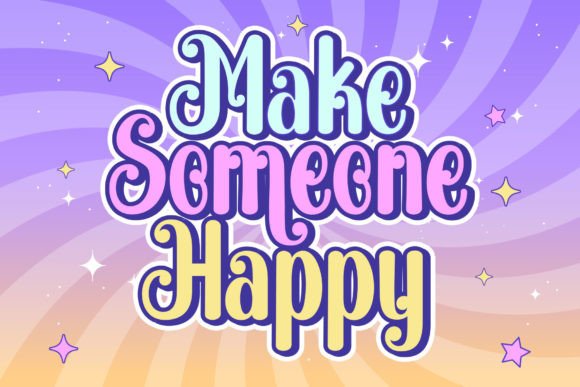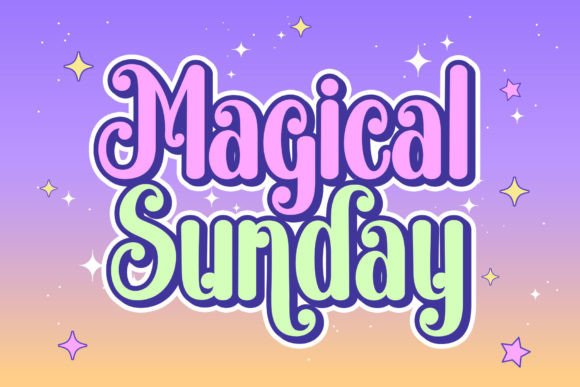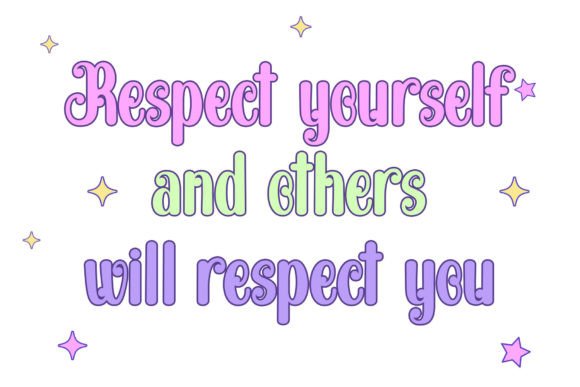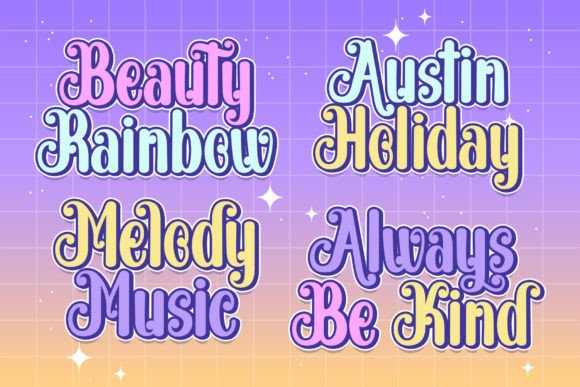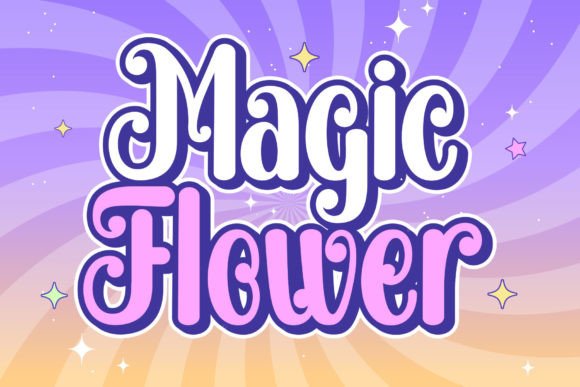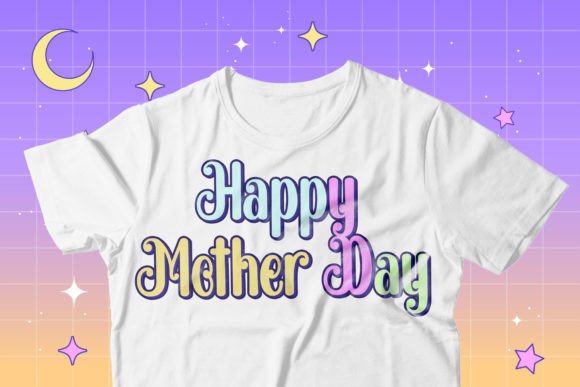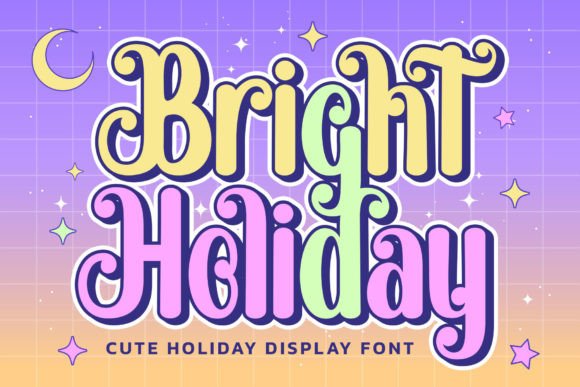
Introducing Bright Holiday Font: Add a Quirk of Fun to Your Designs!
Are you tired of using the same old fonts in your designs? Do you want to add a touch of whimsy and personality to your creations? Look no further than Bright Holiday Font, a cool, quirky, and fun display font that’s perfect for designers and crafters alike. In this article, we’ll take a closer look at what makes Bright Holiday Font so special and how you can use it to elevate your designs.
What is Bright Holiday Font?
Bright Holiday Font is a unique and eye-catching display font that’s designed to add a special quirky touch to any design idea. With its fun and playful style, this font is perfect for a wide range of projects, from logos and branding to invitations, stationery, wedding designs, social media posts, and more.
One of the things that sets Bright Holiday Font apart is its PUA (Private Use Area) encoding. This means that you can access all of the glyphs and alternates with ease, giving you even more creative freedom to customize your designs. Whether you’re a professional designer or a DIY crafter, Bright Holiday Font is an excellent choice for anyone looking to add a bit of personality to their work.
Key Features of Bright Holiday Font
So, what makes Bright Holiday Font so special? Here are just a few of its key features:
- Cool and quirky style: Bright Holiday Font has a unique and eye-catching style that’s perfect for designers who want to add a bit of personality to their work.
- PUA encoded: With PUA encoding, you can access all of the glyphs and alternates with ease, giving you even more creative freedom to customize your designs.
- Multi-purpose: Bright Holiday Font is perfect for a wide range of projects, from logos and branding to invitations, stationery, wedding designs, social media posts, and more.
- Easy to use: Whether you’re a professional designer or a DIY crafter, Bright Holiday Font is easy to use and customize, even if you’re new to font design.
How to Use Bright Holiday Font in Your Designs
Now that we’ve covered the basics of Bright Holiday Font, let’s take a look at how you can use it in your designs. Here are a few ideas to get you started:
- Logos and branding: Bright Holiday Font is perfect for creating unique and eye-catching logos and branding materials that will help your business stand out.
- Invitations and stationery: Add a touch of whimsy and personality to your invitations, stationery, and other paper crafts with Bright Holiday Font.
- Wedding designs: Bright Holiday Font is a great choice for wedding designs, including wedding invitations, programs, and other decorative elements.
- Social media posts: Use Bright Holiday Font to add a bit of personality to your social media posts and make them stand out in a crowded feed.
Tips for Getting the Most Out of Bright Holiday Font
Here are a few tips for getting the most out of Bright Holiday Font:
- Experiment with different colors and textures: Bright Holiday Font looks great in a variety of colors and textures, so don’t be afraid to experiment and find the combination that works best for your design.
- Mix and match with other fonts: Bright Holiday Font pairs well with a variety of other fonts, so try mixing and matching it with different fonts to create a unique and eye-catching design.
- Use it sparingly: While Bright Holiday Font is fun and playful, it can be overwhelming if used too much. Use it sparingly to add a touch of personality to your design without overwhelming the viewer.
| Author | Hoperative Design |
Bright Holiday Font is a unique and eye-catching display font that’s perfect for designers and crafters who want to add a bit of personality to their work. With its cool and quirky style, PUA encoding, and multi-purpose design, this font is perfect for a wide range of projects. Whether you’re creating logos and branding materials, invitations and stationery, wedding designs, or social media posts, Bright Holiday Font is an excellent choice. So why not give it a try and see how it can elevate your designs?